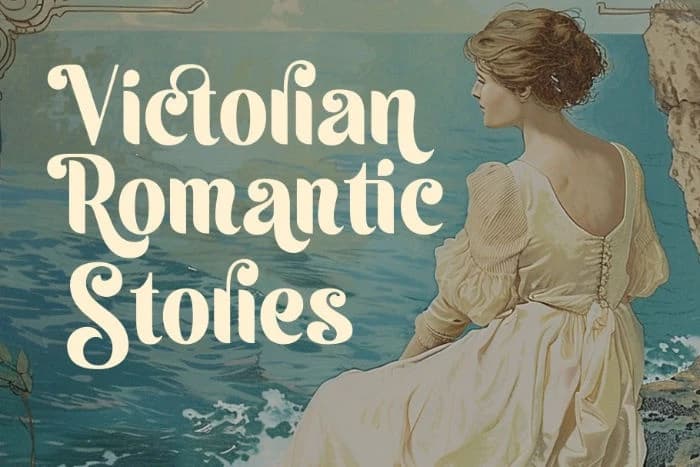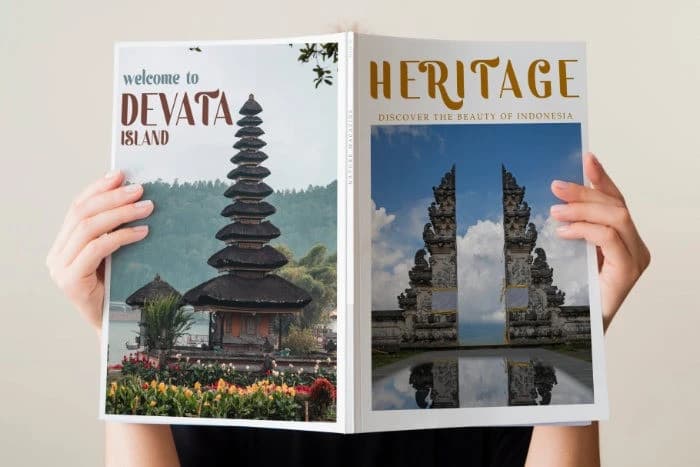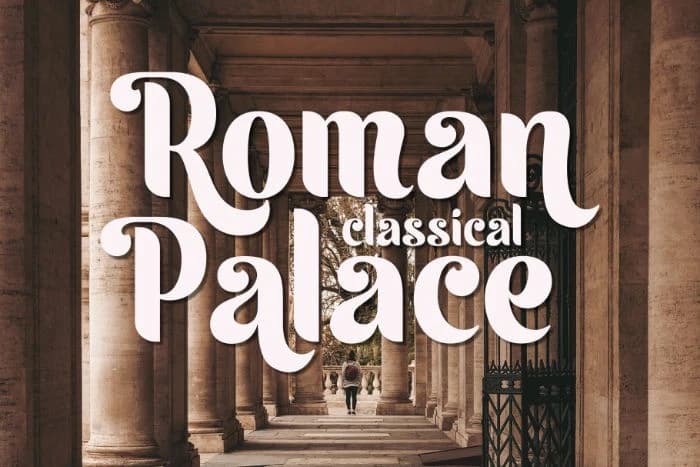
Tradition Font
Tradition Font is a striking Bold Classic Sans Serif font designed to exude strength and sophistication in any creative project. With its clean, structured letterforms and timeless appeal, this font delivers a refined yet commanding presence.